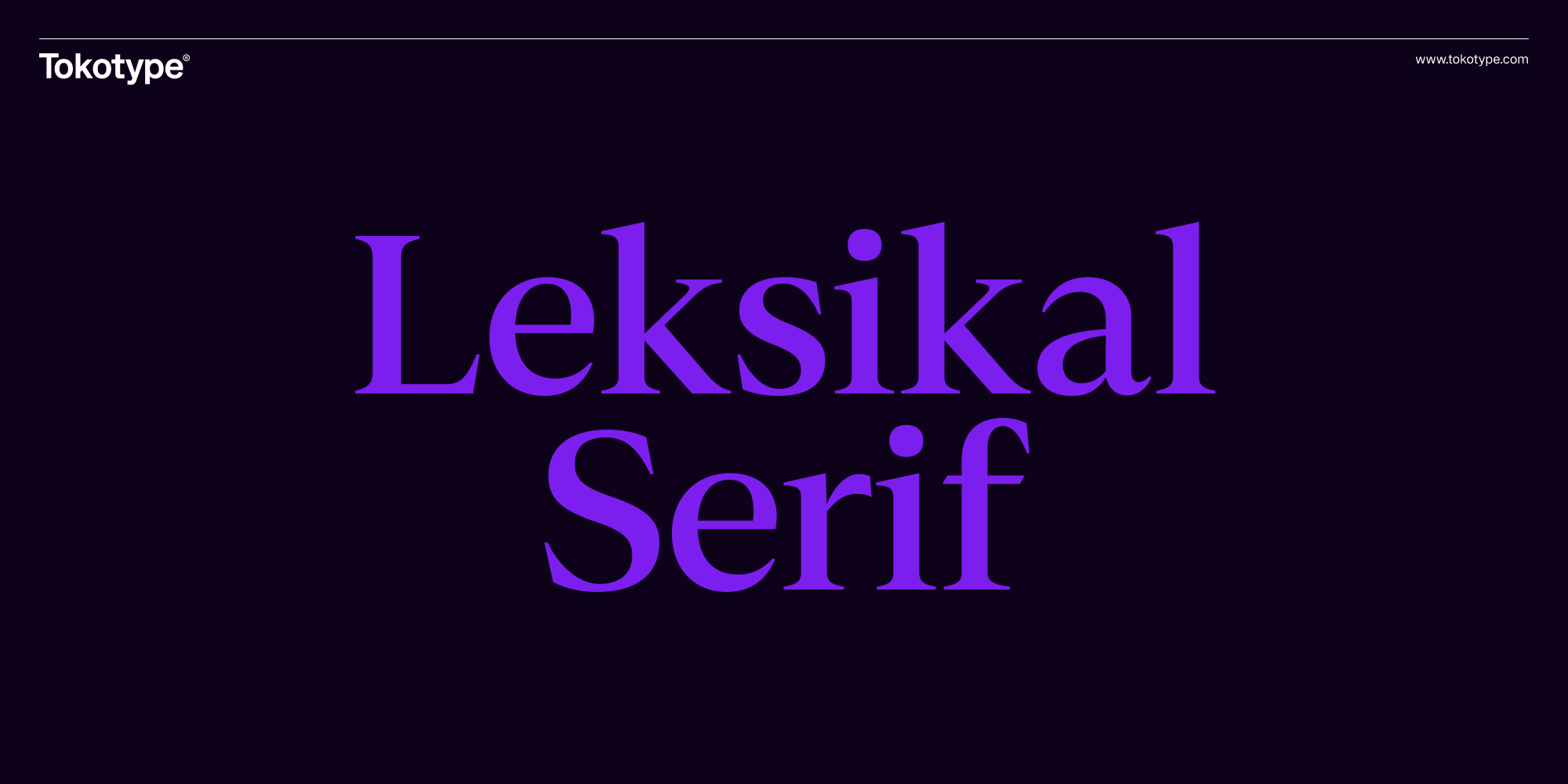
Leksikal Serif
Leksikal Serif is the far end of the axis, where Leksikal takes on a transitional serif structure: moderate stroke contrast and bracketed serifs, rather than the sharper contrast of a modern serif or the heavier bracketing of an old-style one. The Gill Sans derived proportions carry through from the sans end, so the letterforms read as a serif version of the same skeleton rather than an unrelated companion face. Weight range, italics, and Latin Extended coverage match the rest of the family. All three styles, Sans, Flare, and Serif, live on one variable axis, so a single file can move a design system between them without swapping fonts.